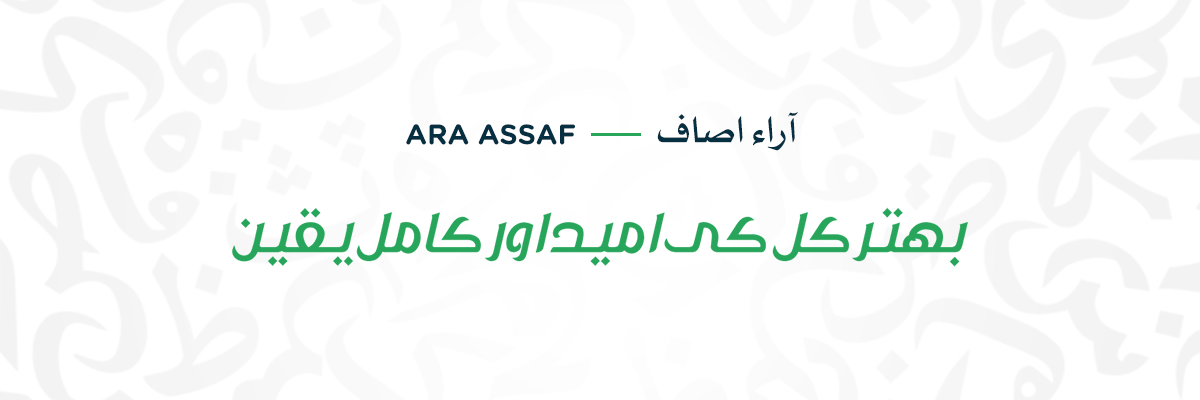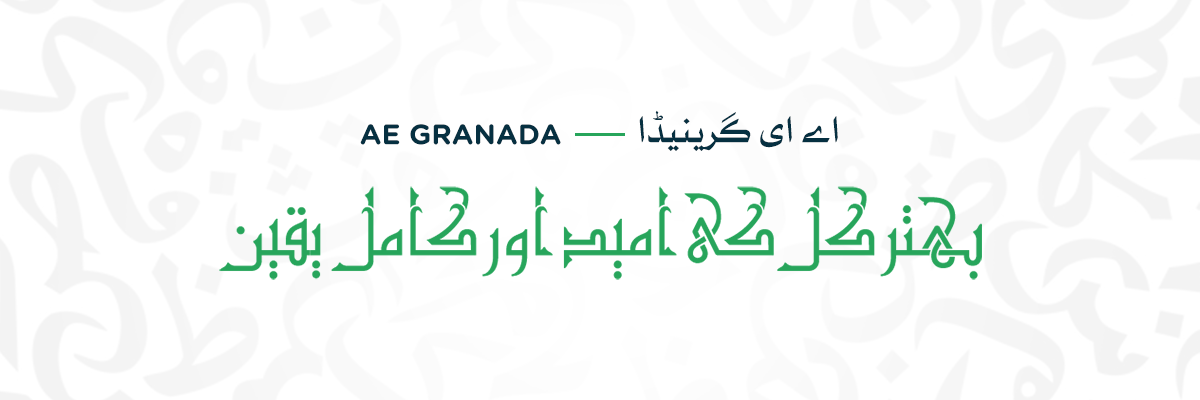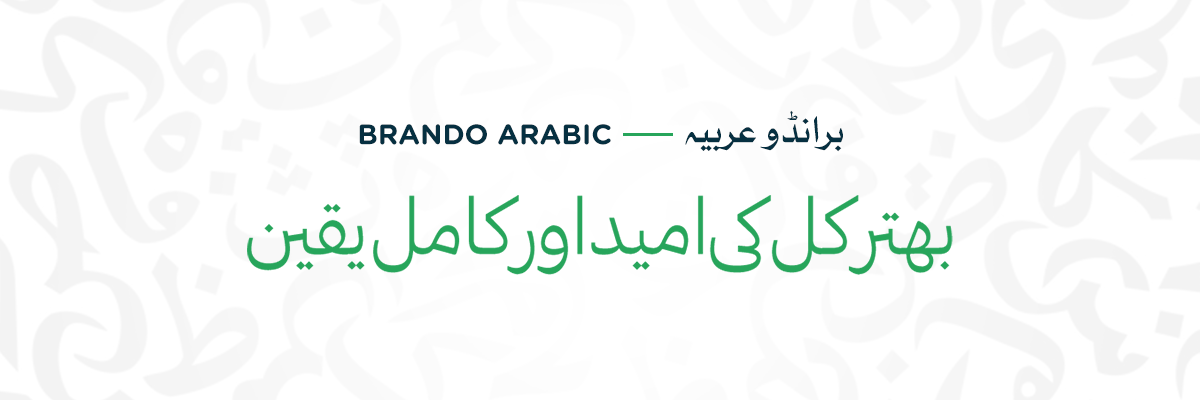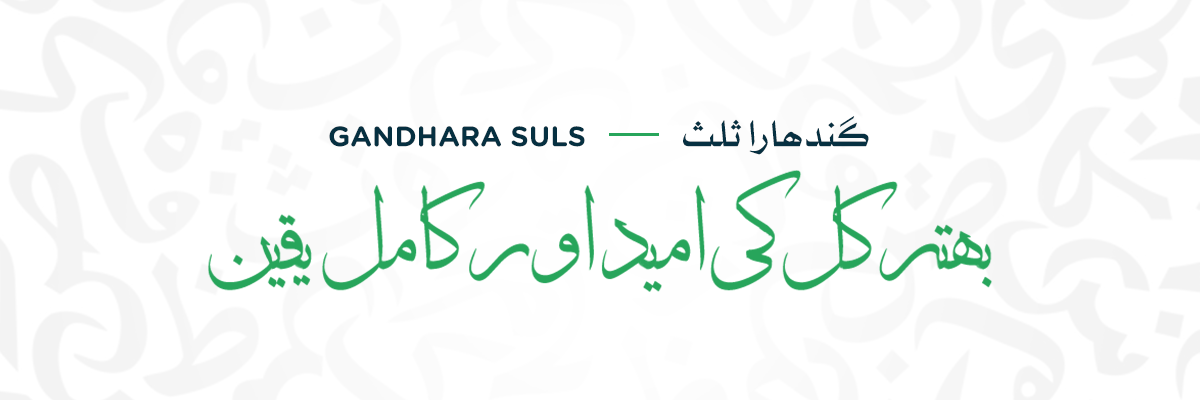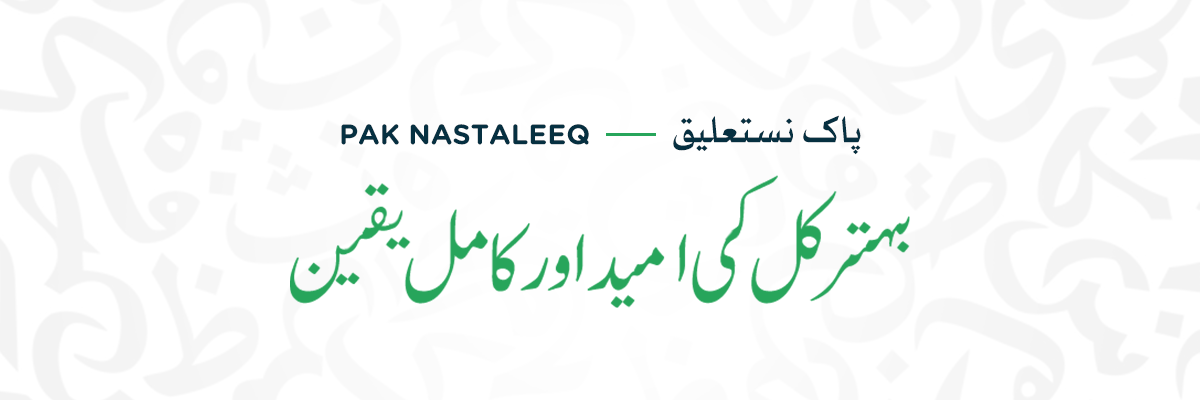
Visual content is the pillar of creating engaging Facebook posts, reels, captions, and long-form videos. It is extremely significant to attract new viewers as well as readers to engage with your page. No doubt, the main thing is the content itself but having knowledge about how to organize and place your content is also equally important. To capture the attention of Pakistani audience and beyond, it is crucial to make a list of the best Urdu fonts for Facebook beforehand so that you can use them accordingly for your different content creation needs.
Remember that you might have used the best content on Facebook, but if your viewers are not able to interpret your delivered message, the content is of no use. That’s why Urdu typography should be given a huge consideration before uploading any content. Moreover, choosing the right Urdu fonts is a vital aspect of visual identity that can affect the perception and success of your page. A consistent and unique typography assists your Facebook page to stand out from its competitors and leaves a long-lasting impression on the target audience. Also check out our best 8 Urdu fonts for Social Media Posts and designs.
Urdu typography is the way you place or arrange content on a Facebook page. It should be engaging enough to captivate and motivate the viewers to read. Not just the best Urdu fonts will boost the engagement but also adds personality, cultural, and artistic flair. With the availability of thousands of Urdu fonts today, you have a lot of option to choose from. Some of the top Urdu fonts for Facebook content creation are as follows:
| No. | Font | Designer | Appearance |
|---|---|---|---|
| 1 | Amiri | Sebastian Kosch, Khaled Hosny | Neat and clear with thin edges and dense curves |
| 2 | Al Shark Title | ZakDesign | Elegant and bold with sharp, pointy corners, bold strokes |
| 3 | AlRaiMedia Bold | Al Rai Media Group | A compact baseline, balanced letter width |
| 4 | AM ZAIN ORIGINAL | Borna Rayaneh | Compact baseline, and slanted edges for an even and clean look |
| 5 | AL Mohanad | Al-Amri | Wide with pointy angles, bold strokes, and high contrast |
| 6 | Ara Assaf | Abdullah Aref, Zakariya Saleh | Bold with subtle slants, solid strokes, constant thickness |
| 7 | ae Granada | Nadim Shaikli | Modern and decorative with curved edges, beautiful serifs |
| 8 | Brando Arabic | Bold Monday | Multipurpose with curved and wide letterforms |
| 9 | Gandhara Suls | Abdul Majeed Khan | Flowing letterforms, curly terminals, thin edges |
| 10 | Faiz Lahori Nastaleeq | Ahmad Mirza Jamil | Slanted with long edges, curved corners, equal spacing |
| 11 | Pak Nastaleeq | Mohsin Shafeeque Hijazee | Moderate and constant thickness, diagonal slant, |
| 12 | AA Sameer Qamri | AA Sameer | High stroke contrast, slightly tilted letterforms |
| 13 | ae Al Hor | Nadim Shaikli | Handwritten, rounded, and free-style with irregular appearance |
| 14 | Baloo Bhaijaan 2 | Noopur Datye, Sanskriti Dholi, Ek Type | Fun and playful with open characters and rounded corners |
| 15 | ae Sindibad | Nadim Shaikli | Thin, elegant with graceful, pointy characters, flowing endpoints |
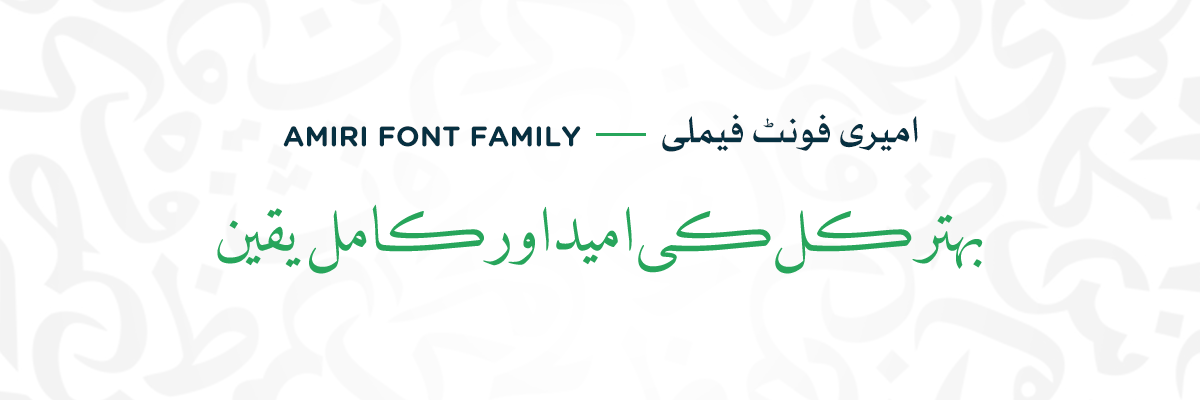
Amiri was designed by Sebastian Kosch and Khaled Hosny. Released on 16th April, 2016, it is an Arabic font that has taken inspiration by the classical Naskh script with contemporary touches. The neat and clear appearance of this font ensures legibility even in small screen, making it best for longer content pieces on Facebook. With thin edges and dense curves, it has straight rounded terminals and even letter spacing. Moreover, it has gained popularity due to a traditional and elegant touch it offers. With 807 letters and symbols & 5478 glyphs, it can support many languages like Arabic, Latin, Urdu, and Persian.
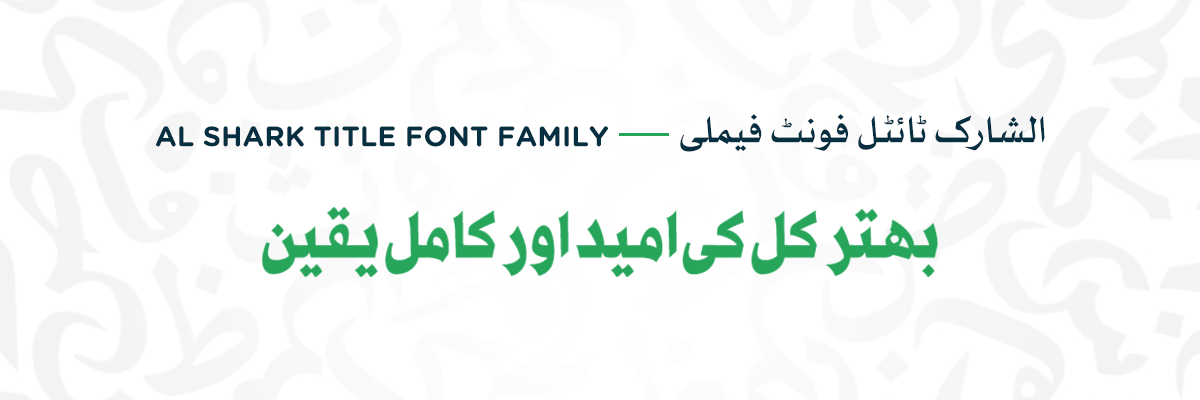
Designed by ZakDesign, Al Shark Title was launched on 5th Oct, 2017. It is an elegant and bold font with some modern touches. The font combines tradition with modern design, making it perfect for Facebook pages that needs a cultural element. It has sharp and pointy corners, bold strokes, as well as Qalam-inspired edges, providing it a distinctive overall look. Having 791 glyphs and 871 characters, the font supports many languages. Furthermore, it covers several Unicode blocks for wide language support. The font is accessible in three weights: Black, Bold, and Light so you can use it according to your niche requirements. Moreover, look into our 12 best Urdu fonts for eye-catching Headlines and Headings.
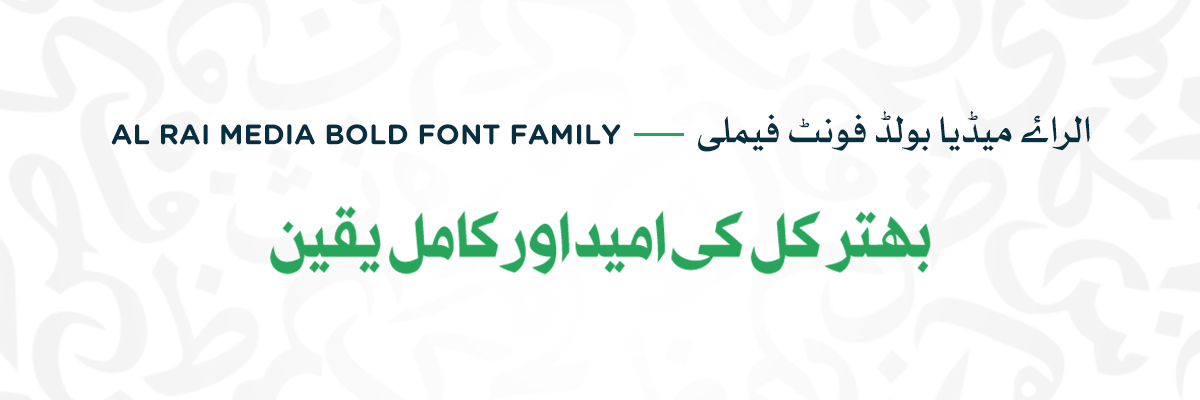
Al Rai Media was created by Al Rai Media Group and launched on 5th Oct, 2017. It is a bold and beautiful font inspired by the Naskh style. With bold strokes as well as flourishes, it provides a visually aesthetic look and high readability. It has diagonal strokes, a compact baseline, and balanced letter width. Furthermore, the font is available in 3 different weights – Black, Bold, and Regular, providing flexibility for several design requirements. It can support many languages, including Latin, Greek, Arabic, and Urdu. The font guarantees uniformity with equal letter spacing and is perfect for titles and headings for your Facebook posts. If you like this font also check our Urdu fonts provided by Google fonts to get highly diverse font families with various weights and styles.
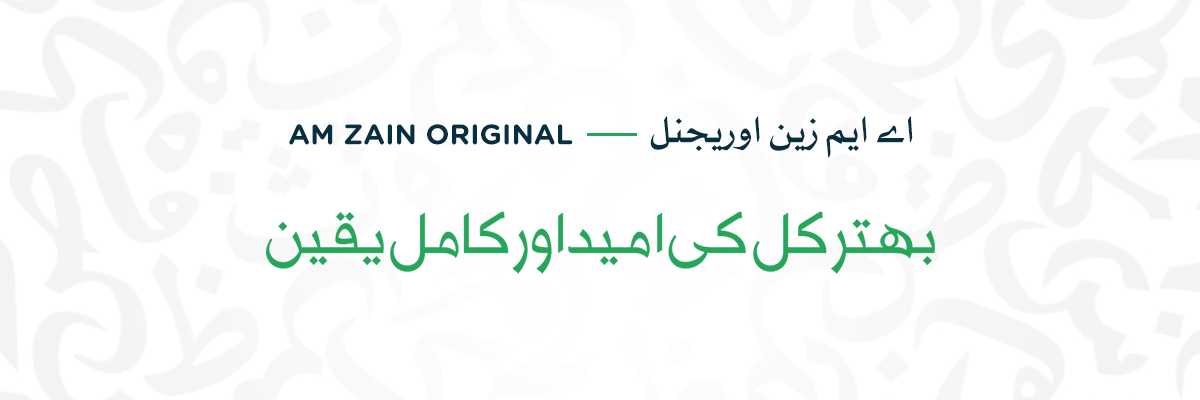
AM ZAIN ORIGINAL was made by Borna Rayaneh and launched on October 7, 2017 by DigiSignFont. It is also a regular Arabic font with a touch of Qalam writing style. The font has a compact baseline, horizontal emphasis, and slanted edges for an even and clean look. It has normal weight, medium width, and constant thickness throughout, guaranteeing high readability even at smaller screens. The font is a good option to use for longer texts because of its solid strokes. With 217 glyphs aa& 288 characters, it supports numerous languages and multiple Unicode blocks, allowing cross-platform use as well as compatibility.